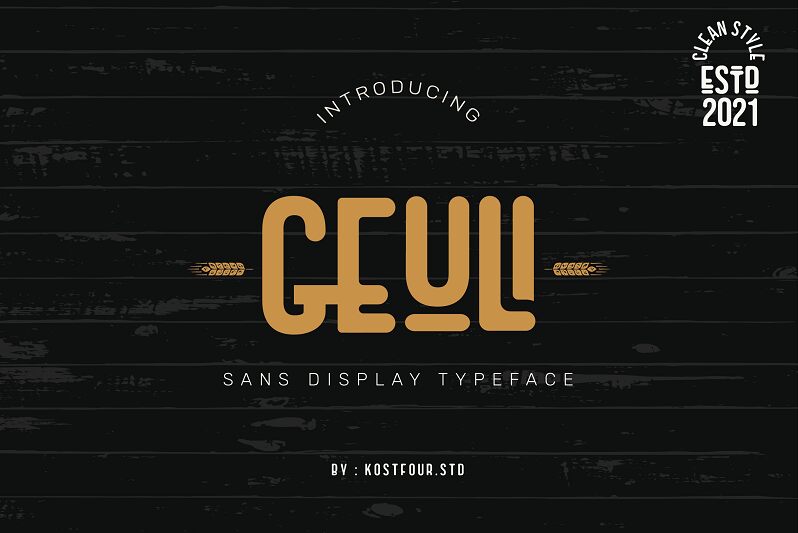
GEULI
Geuli font by Moodtype Studio is a minimalist sans serif free font featuring clean and modern contours. Its geometric condensed appearance makes it easy to read for long texts and headlines. Uniform weight defines all characters of this geometrically inspired typeface that also offers rounded endings for all letters.